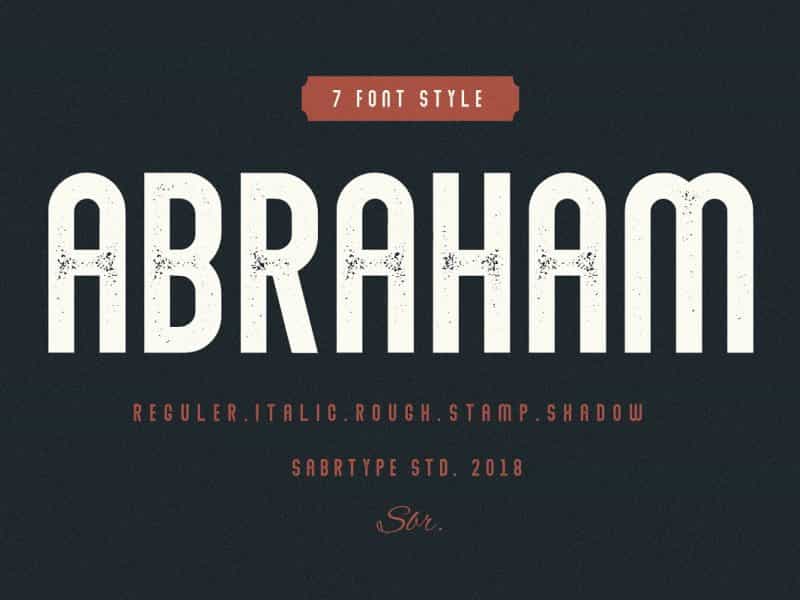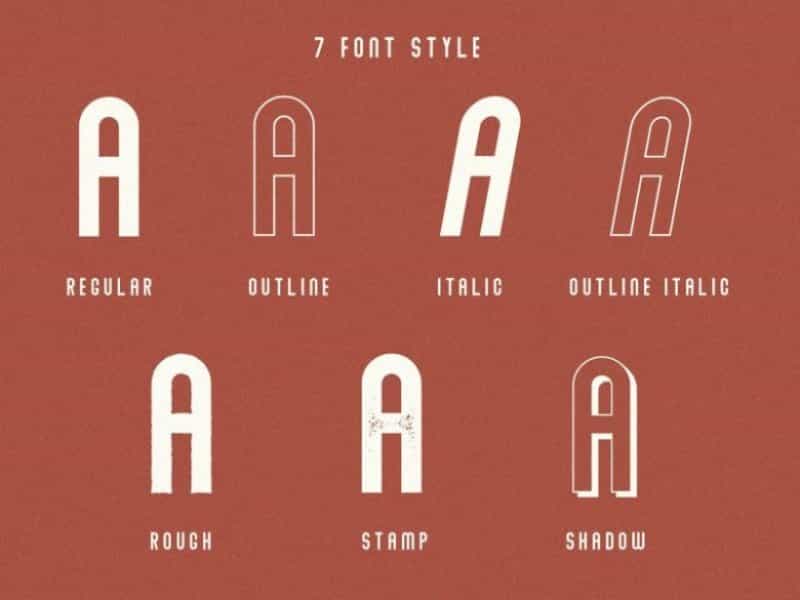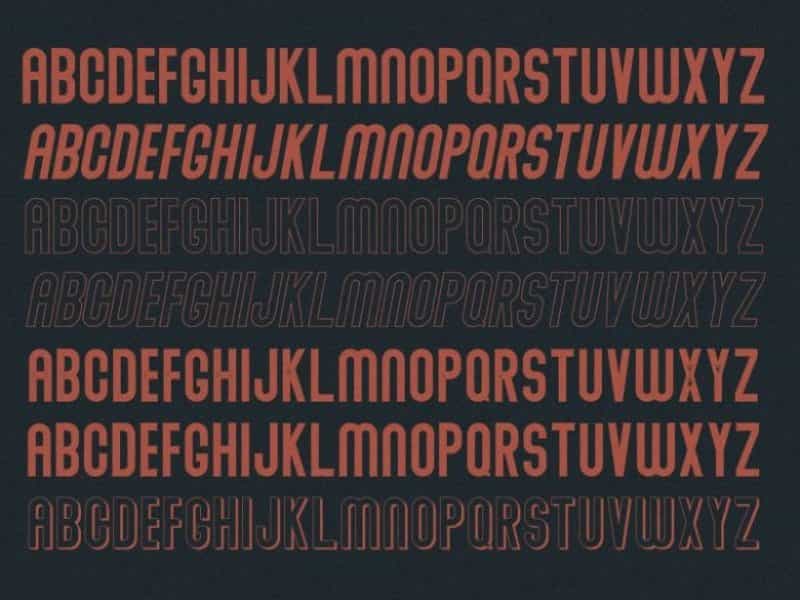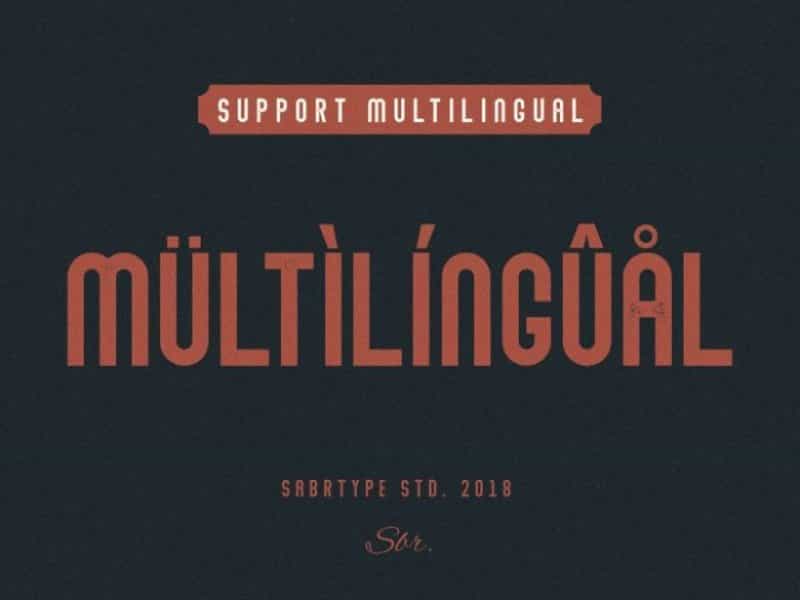
Introducing Abraham Typeface. The Abraham is a modern, sans serif modular family. Abraham is a font that has been built on the solid foundations of various styles such as Regular, Italic, Rough, Stamp and Shdow. It is perfect for logos, greeting cards, quotes, posters, branding, business cards and other stationary. It can also be used as a design title or blog header art quote typography.